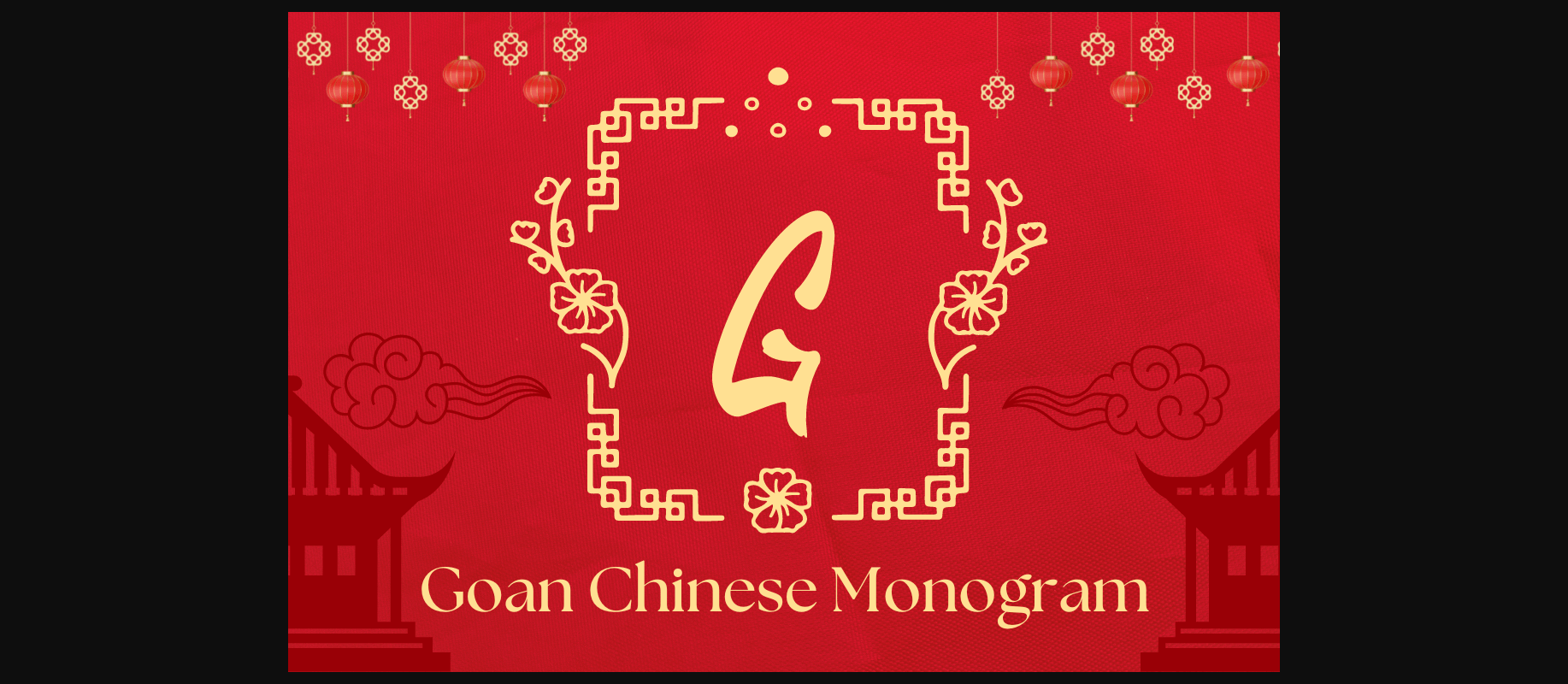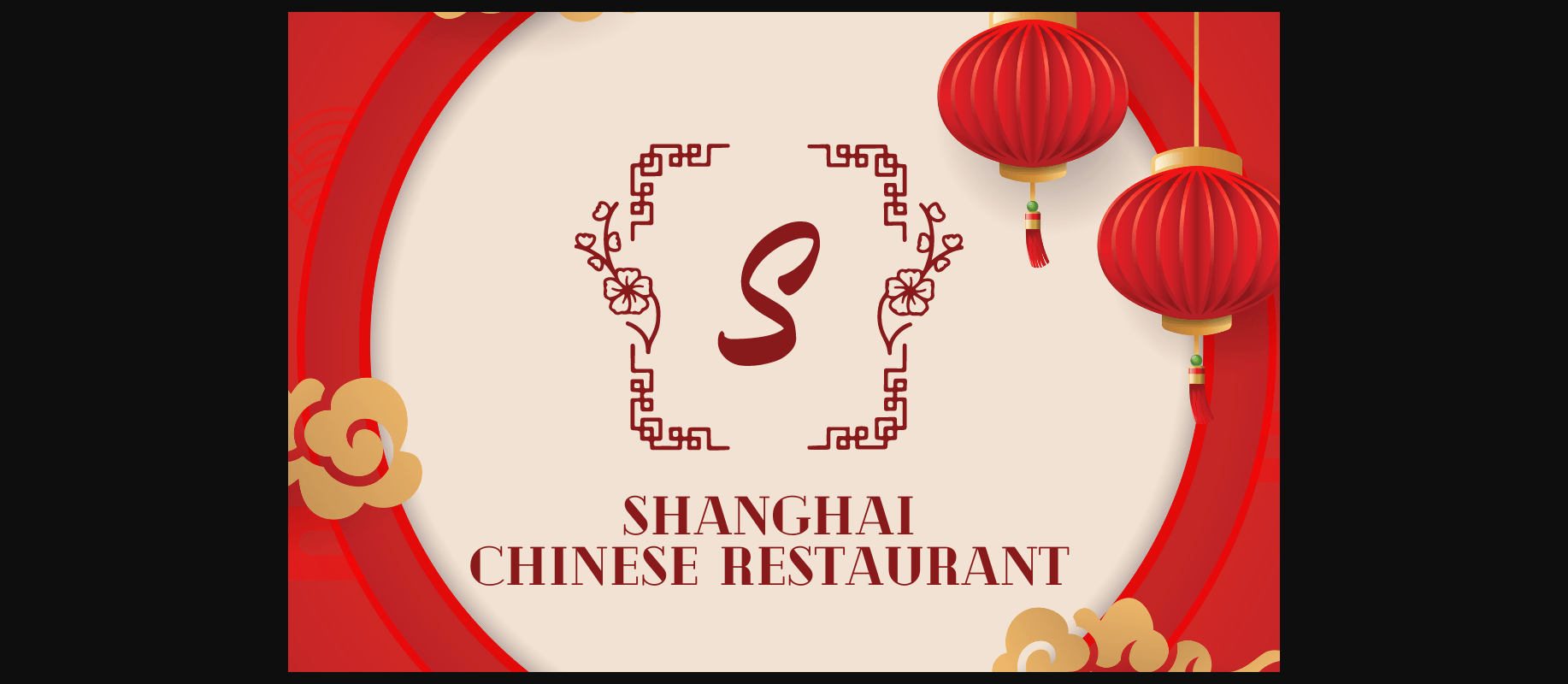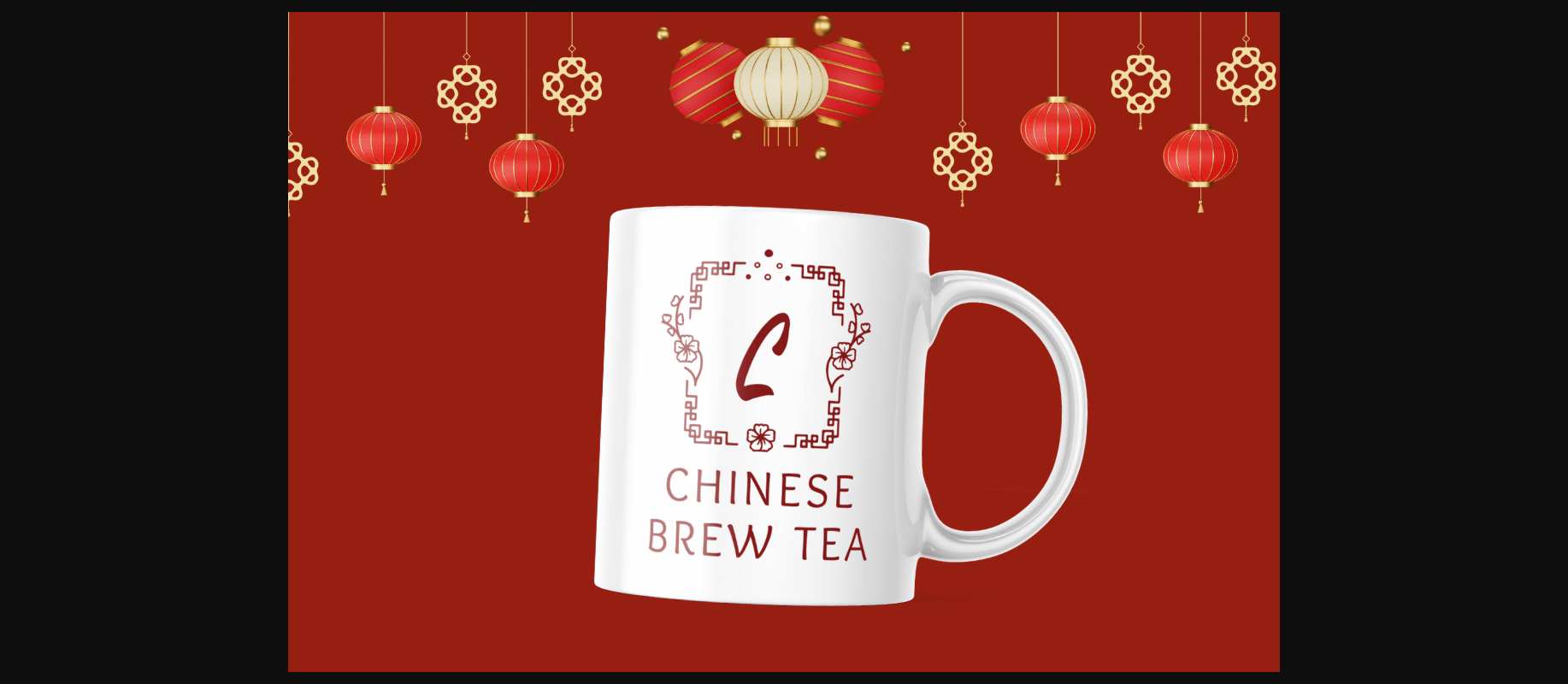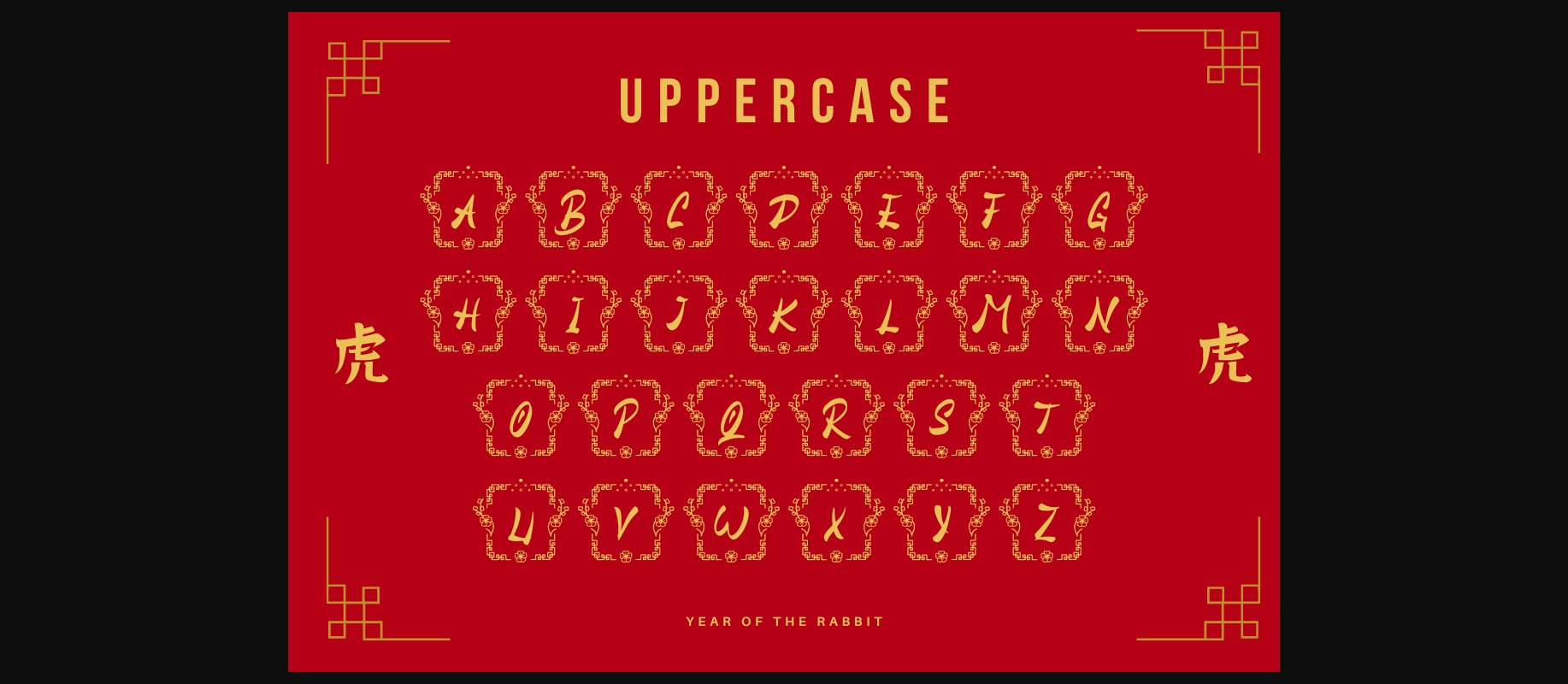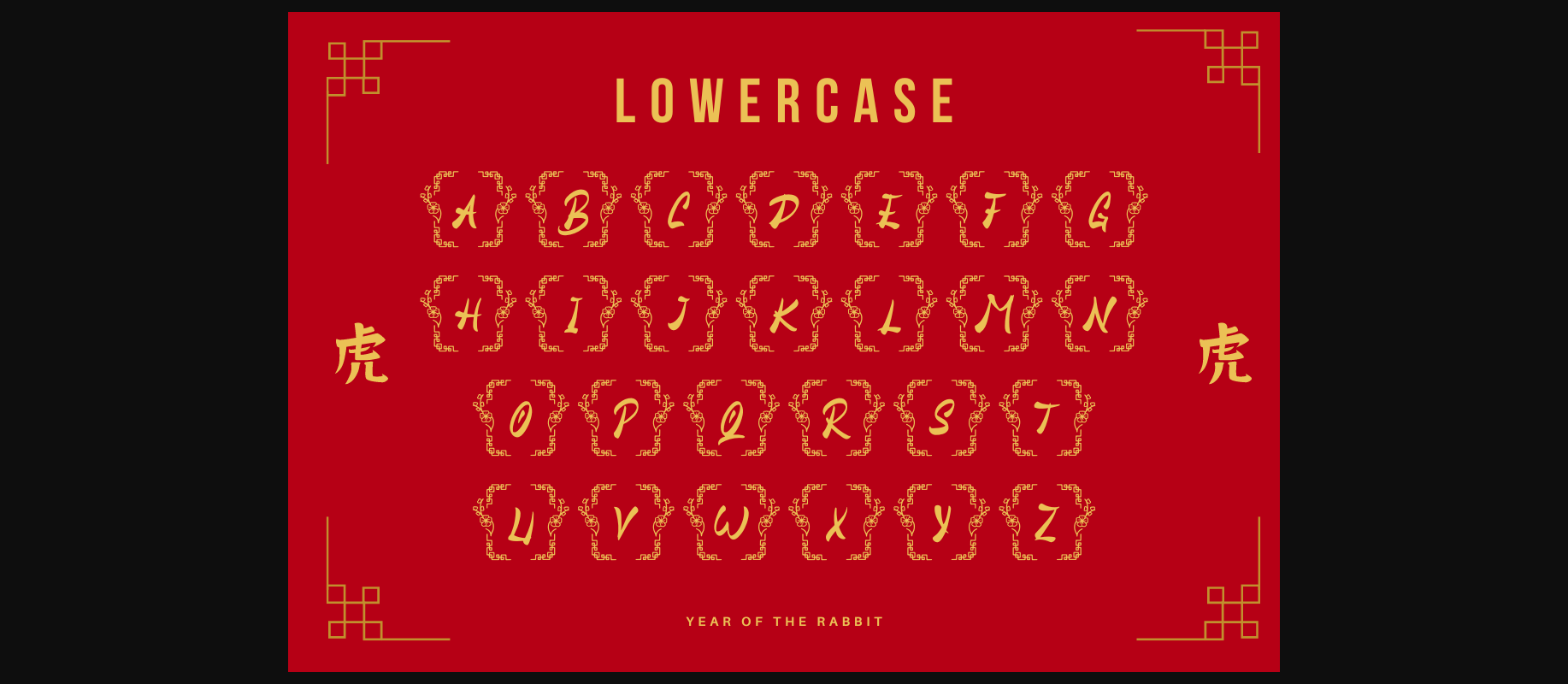
About Goan Chinese Monogram Font
Goan Chinese Monogram is a lovely decorative font.
This font can be used to make Chinese New Year themed gifts, including tea towels, gifts for kids, or home decor.